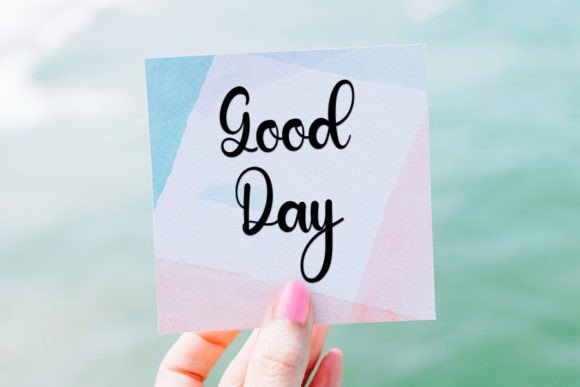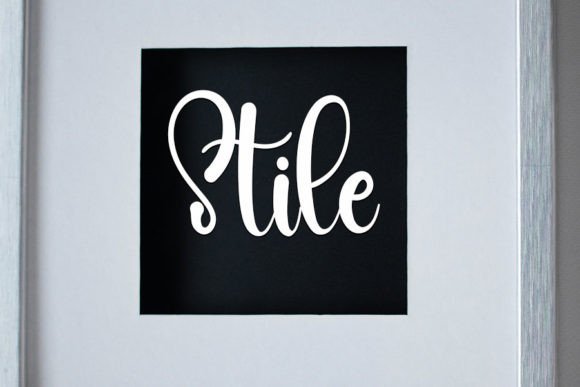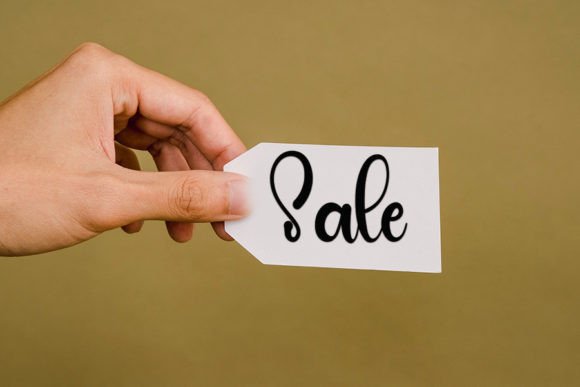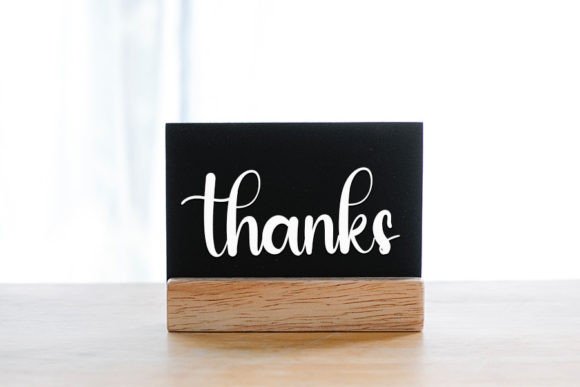
Introduction to Sintha Font
As designers, we’ve all been there – staring at a blank canvas, eager to bring our creative vision to life. The right font can make all the difference, elevating our designs from bland to grand. And that’s exactly what the Sintha Font does – it adds an elegant touch to our projects, making them truly unforgettable.
With its distinct and timeless style, the Sintha Font is a valuable resource for designers looking to add a personal touch to their work. Whether you’re working on a free download project or a high-quality design, this font is sure to impress. Its transparent background and high-quality design make it a perfect fit for creative projects that require a delicate yet striking look.
So, what makes the Sintha Font so special? For one, its beautiful handwritten style sets it apart from more generic fonts. It’s perfect for designers who want to add a unique touch to their designs, without sacrificing quality or style.
Key Features of Sintha Font
- Includes a large character set, supporting multiple languages and alphabets.
- Designed with a unique, modern aesthetic, making it perfect for contemporary design projects.
Honest Review: Sintha Font
As a designer, I’m always on the lookout for high-quality design resources to elevate my creative projects. Recently, I stumbled upon the Sintha Font, and I’m excited to share my honest review.
What works well: ✨ The Sintha Font is incredibly versatile, with a wide range of styles and weights that make it perfect for various design applications. The font’s clean and modern design makes it ideal for branding, typography, and digital design projects. I also appreciate the fact that the font is available for free download, making it a valuable addition to any designer’s toolkit.
- Wide range of styles and weights
However, I do have a few limitations to mention: ⚠️ The Sintha Font doesn’t include any special characters or extended language support, which may be a drawback for designers working on complex projects. Additionally, the font’s transparent background may not be suitable for all design applications.
Overall, I’m impressed with the Sintha Font’s quality and versatility. While it may have some limitations, it’s a valuable resource for designers working on creative projects. I’d definitely recommend it to anyone looking for a high-quality, free font.
Tips for Getting the Most Out of Sintha Font
For high-quality results, make sure to use the Sintha Font with a transparent background in your design project. This will allow the font to blend seamlessly with your design. Additionally, experiment with different font sizes and colors to add visual interest to your project.
The Sintha Font is a versatile design resource that can be used in a variety of creative projects, including logos, posters, and social media graphics. It’s also a great option for creating presentations and reports in PowerPoint or Word.